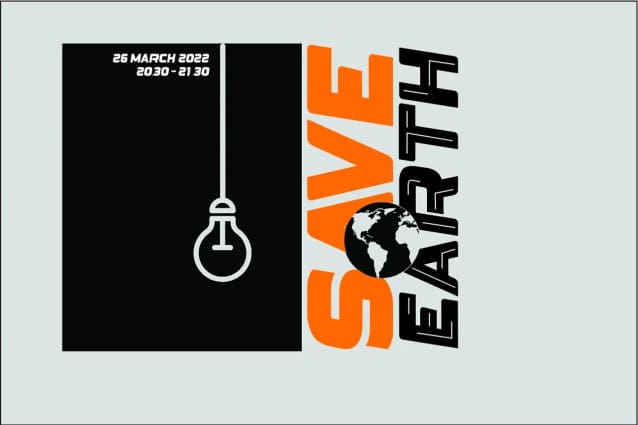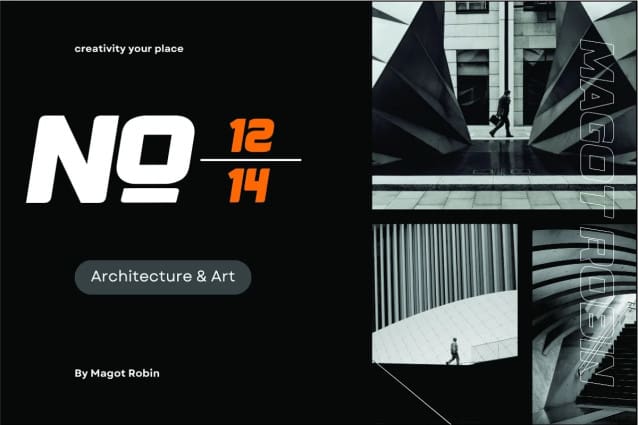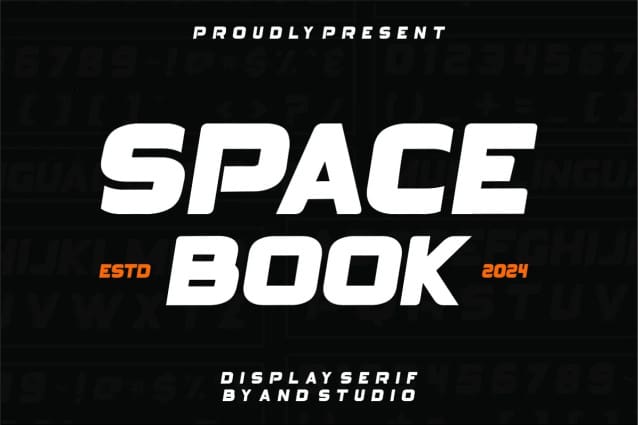
Spacebook Font
Spacebook Font – a modern font that exudes cleanliness and boldness, while adding an elegant touch to every graphic design project. With various alternatives of all caps styles available, this font not only emphasizes strong characters but also offers wide creative flexibility.
Each letter in “Spacebook Font”  is designed with mathematical and artistic precision to ensure maximum clarity and unparalleled beauty. The clarity of each character provides clarity in visual communication, while the elegant impression adds an undeniable touch of professionalism.
With clear advantages and remarkable ease of use, “Spacebook” becomes the top choice for various design projects, ranging from corporate logos to flyers, from web design to marketing materials. With its ability to capture attention without compromising on clarity and boldness.